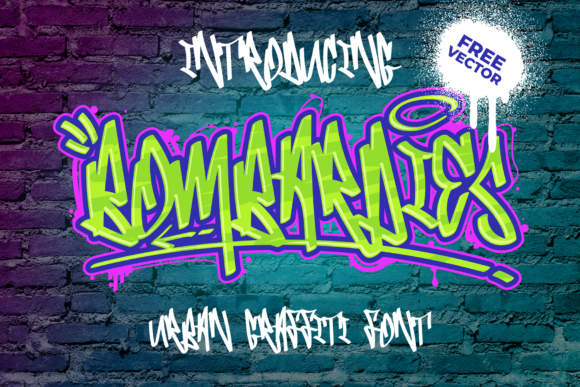
The Ultimate Display Font: Bombardies
An Honest Review of Bombardies
What I Love About Bombardies
- ✨ Bold and Unique: Bombardies is not your average font. Its bold and incredibly unique design makes any text stand out, adding a touch of personality to your creative projects.
- ✅ Versatility: Whether you’re working on a logo, a poster, or a social media graphic, Bombardies can be used across various design projects, making it a versatile addition to your font library.
- 💡 Instant Impact: This font has a way of grabbing attention. It’s perfect for designers and crafters looking to make a statement with their work.
While Bombardies is an amazing font, there are a few things to keep in mind:
- 🤔 Legibility at Small Sizes: Like many display fonts, Bombardies shines at larger sizes. However, its boldness can sometimes compromise legibility at very small sizes. It’s best used for headlines or titles rather than body text.
- ⚠️ Overuse: Given its bold and unique design, Bombardies can be overwhelming if overused. Balance is key when incorporating this font into your designs.
The Designer Inspiration Behind Bombardies
While the origins of Bombardies might be shrouded in mystery, it’s clear that its design was inspired by a desire to create something bold, unique, and eye-catching. The creator likely sought to push the boundaries of traditional typography, resulting in a font that’s both a statement piece and a versatile tool for designers.
Q: What makes Bombardies unique?
A: Bombardies stands out due to its bold and incredibly unique design, making it perfect for display purposes and adding a distinctive touch to creative projects.
Q: Is Bombardies suitable for body text?
A: Due to its bold design, Bombardies is best suited for headlines, titles, and short text snippets rather than body text. Its legibility at smaller sizes may be compromised.